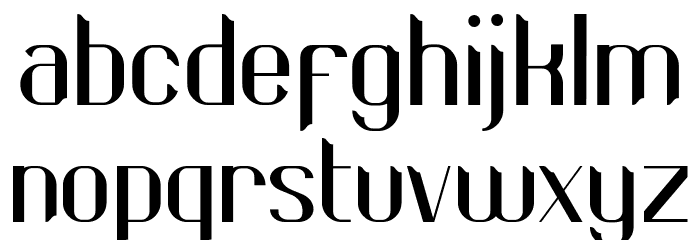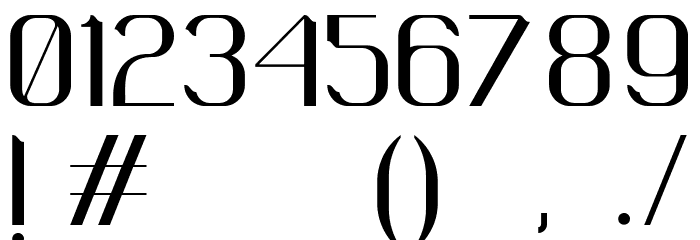
Luvenia Sans Serif Font
This font exhibits a modern and sleek design with a sans-serif style. The characters are characterized by clean lines and a geometric structure, giving it a contemporary feel. The uppercase letters are bold and commanding, while the lowercase letters maintain a consistent flow with slightly rounded edges. The numerals are distinct and clear, ensuring readability. Special characters are designed with the same attention to detail, making them fit seamlessly with the rest of the font. Overall, this font is versatile and can be used in various design contexts.
A modern sans-serif font with clean lines and geometric structure.
- Font: Luvenia Sans Serif
- Proposed Projects: Ideal for branding, advertising, digital media, and editorial design projects.
- Use Case: Headlines, Logos, Digital Media